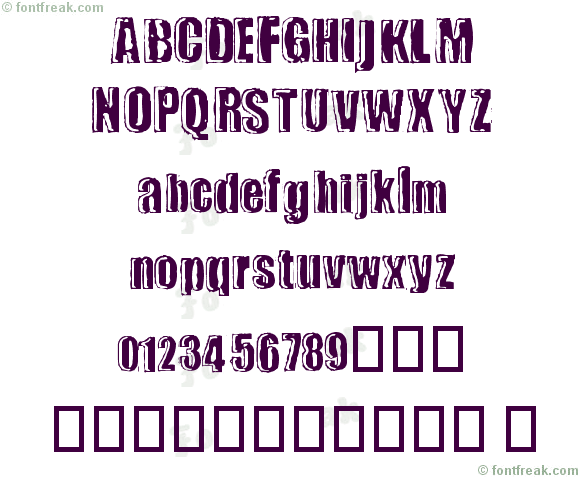
my wife sucks
About my wife sucks
The "my wife sucks" font by Pennyzine is a distinctive display typeface that captures attention with its unique character. This font features a bold, slightly rugged style that can be classified as decorative. Its playful yet edgy appearance makes it an ideal choice for projects that aim to convey a sense of humor or irreverence. The stroke weight varies across the characters, offering a dynamic visual contrast that enhances its overall impact. The spacing between letters is generous, allowing for easy readability while maintaining a visually engaging presence.
This font excels in various creative applications. It is particularly suitable for novelty items such as humorous greeting cards, quirky merchandise, and personalized gifts. Additionally, its unique style makes it a great fit for party invitations, especially those with a lighthearted theme. The "my wife sucks" font can also be effectively used in social media graphics, where catching the eye of viewers is essential. Small business owners may find it beneficial for branding materials that require a touch of personality, such as restaurant menus or promotional flyers.
Targeting graphic designers, content creators, and small business owners, this font provides an avenue for adding a distinctive flair to their designs. The playful tone of the "my wife sucks" font allows for creative expression while ensuring that the message resonates with the intended audience.